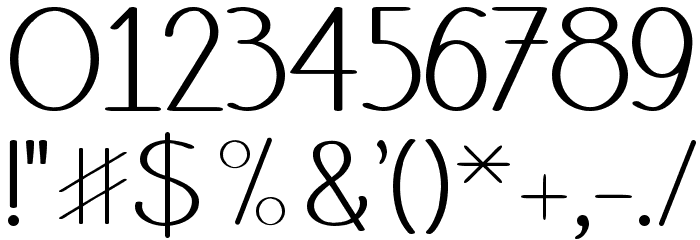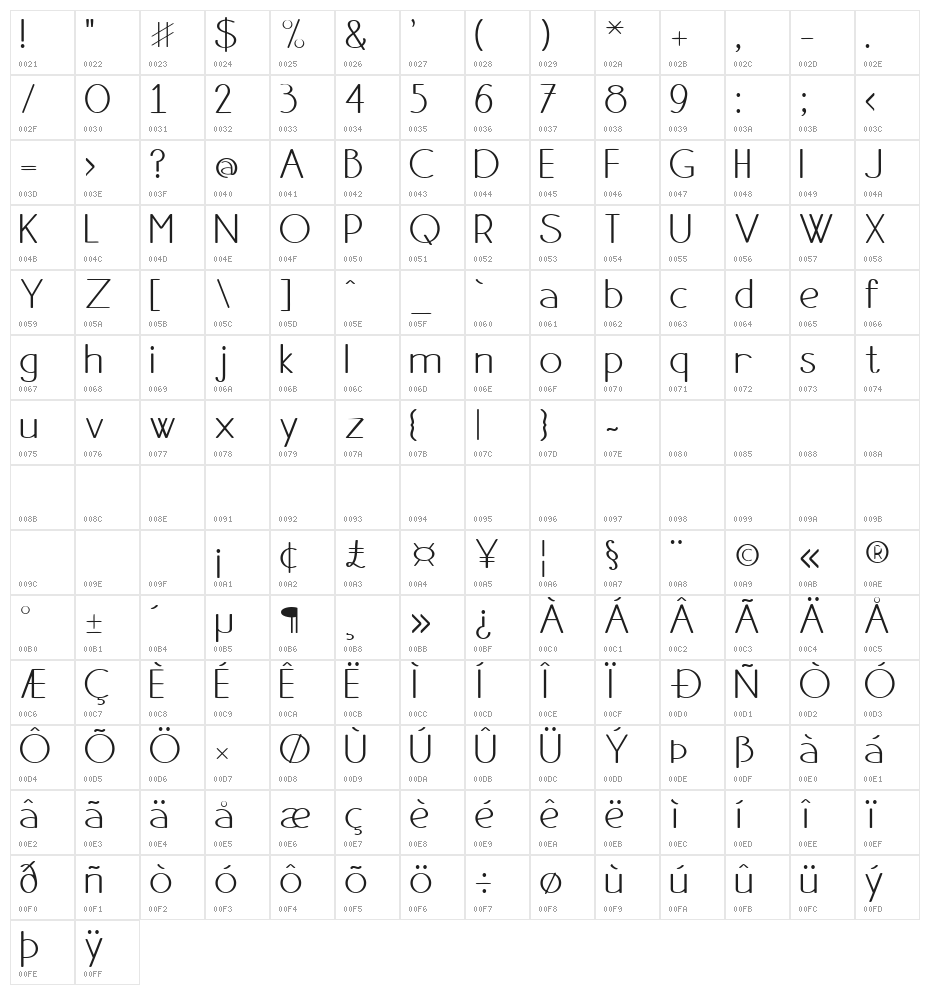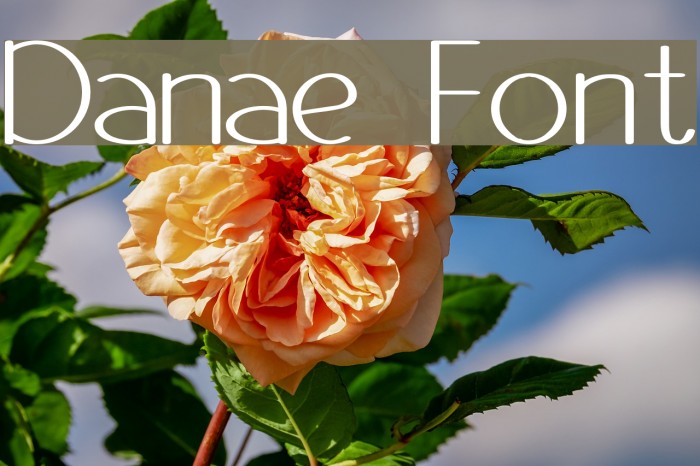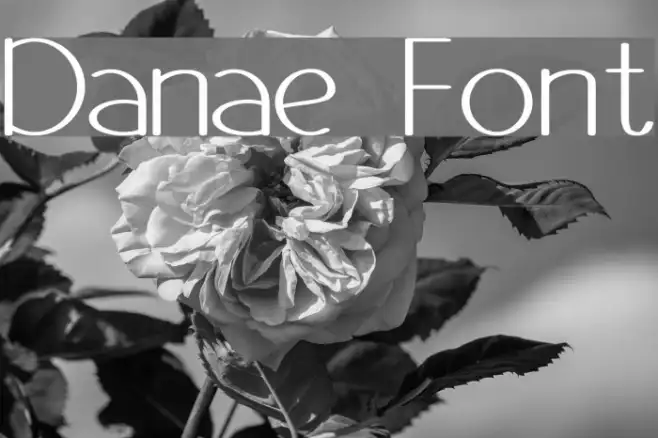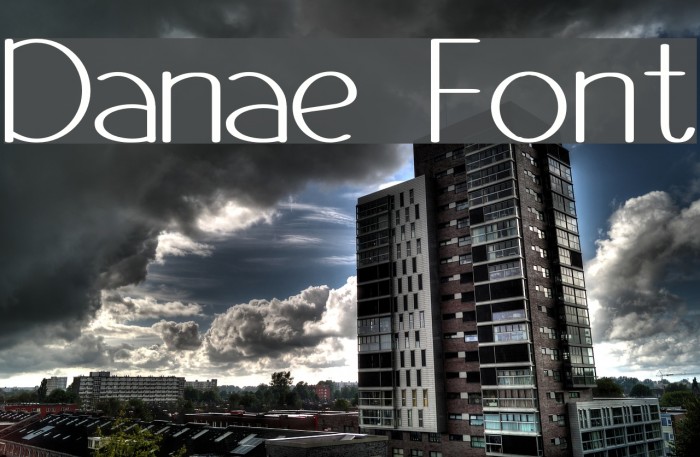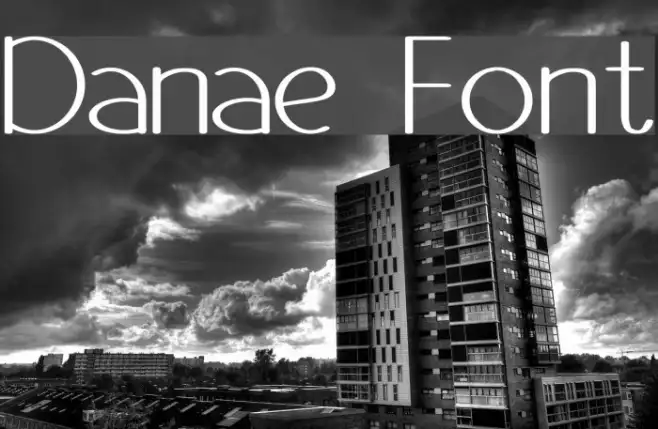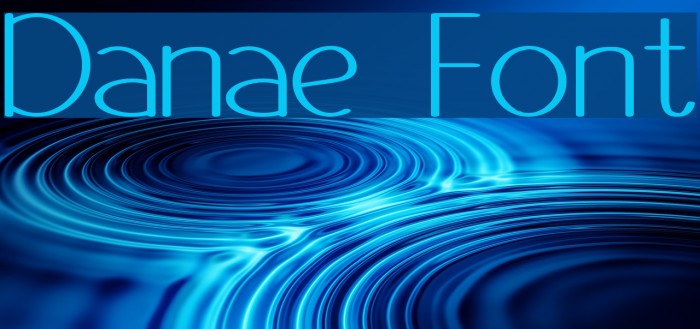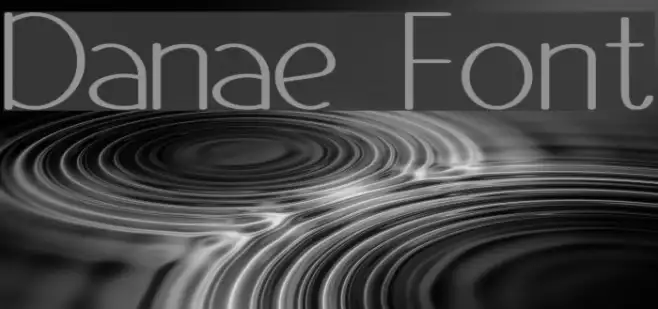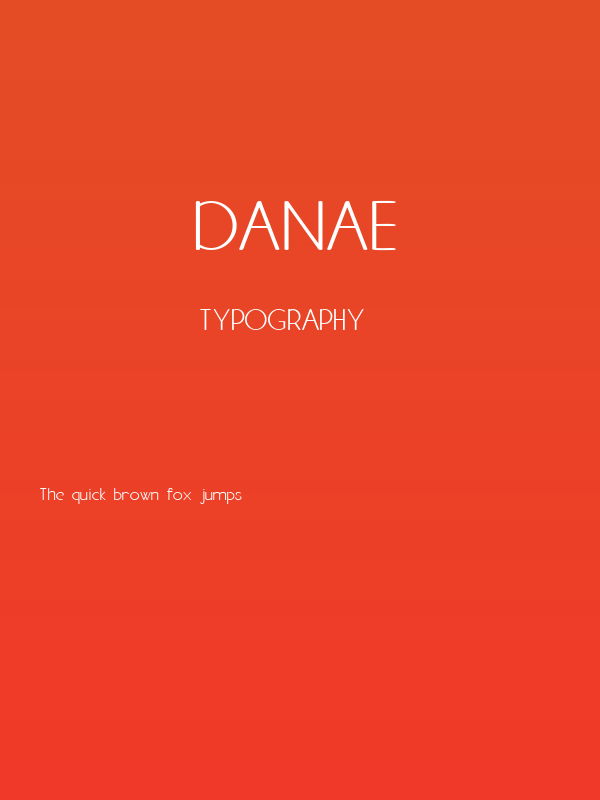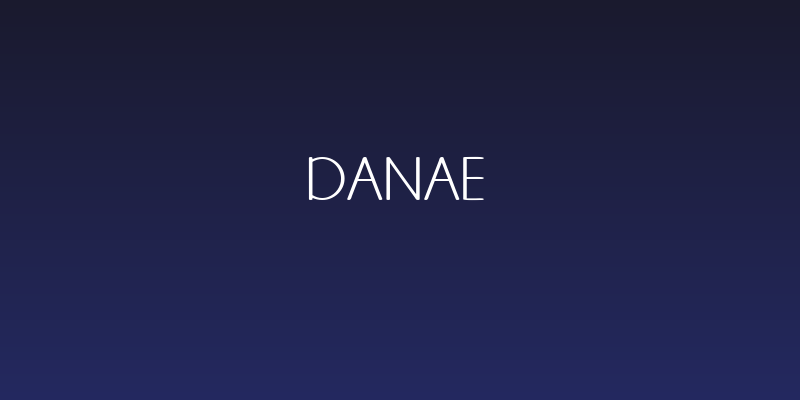
Danae Font
Danae Description
This font features a modern and clean design with a geometric sans-serif style. The characters are well-balanced with a consistent stroke width, giving it a sleek and contemporary appearance. The uppercase letters are slightly taller than the lowercase, providing a distinct hierarchy. The numerals are clear and easy to read, matching the overall aesthetic of the alphabet. Special characters are designed with the same attention to detail, ensuring uniformity across all glyphs. The font's simplicity and elegance make it versatile for various design applications.